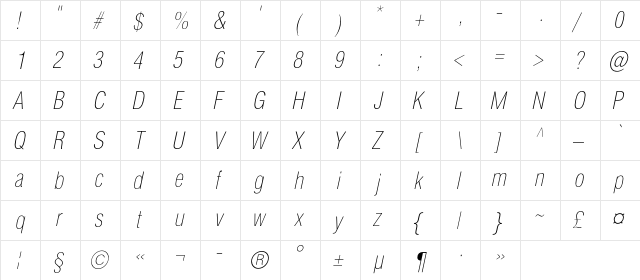
HeliosCondThinC Italic Font Preview
Design Context for HeliosCondThinC Typeface
HeliosCondThinC offers clean, dependable letterforms without strong stylistic allegiance, making it a practical choice for designers who need flexibility. The dynamic lean of this cut emphasises speed and emphasis in any layout. The delicate stroke weight brings airiness and refinement to layouts. The condensed width makes it efficient for tight spaces without sacrificing legibility.
Pro Tip: Try HeliosCondThinC for annotation and caption copy alongside an upright companion — the contrast in angle creates a dynamic but ordered typographic system.